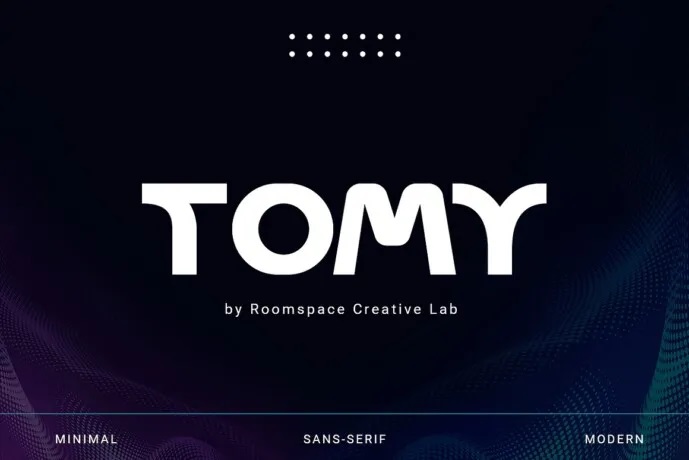
Tomy Font
Tomy is a Modern Sans Serif font. Intended for the artists who are in need of clean minimalistic styles, this font adds a flair of elegance to every single project. When placed on a button of a website main page, in the logo of a new product, in a striking poster – Tomy guarantees that your call will be clear and classy. The lines are clear and there is proportionality, which makes it desirable in any design requirement. Tomy Modern Sans Serif Font is your guide to uber chic minimalism.
This means that your content shall be easily spotted from the no-frills user interface of the website. On the model, it is simple and to the point, making it suitable for the modern day brands that seek to make a statement; Tomy’s design is the best. Be unique with a font that can say a lot with the least and express a lot of class at the same time.
Tomy Sans Serif Font